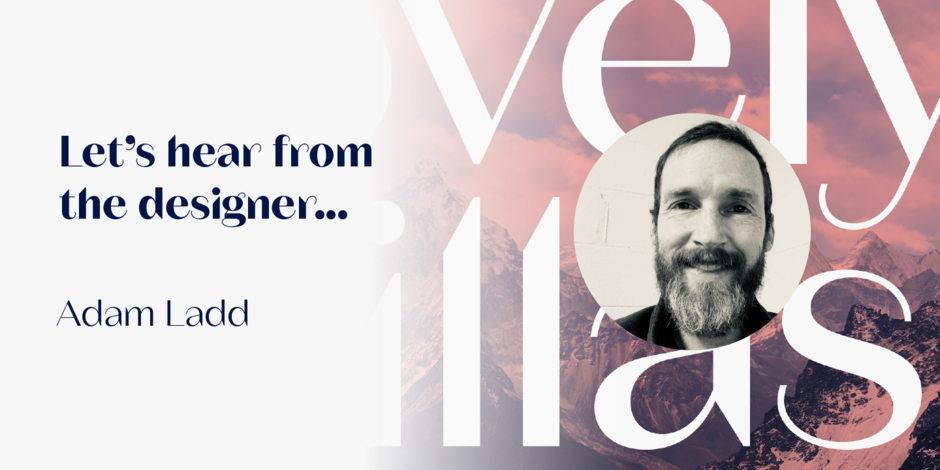
#19 Fromage by Adam Ladd
Q1: What should graphic communicators look for when choosing a typeface family for a specific project? What kind of typeface designs are best for pairing with your typeface?
Ans: I think a primary aim that needs to be addressed is the tone of voice for a project. Asking questions of the typeface design, like “what and how does this communicate to the intended viewer?”. Given that Fromage is mainly intended for display, most simple, unadorned sans serifs could support it well when paired.
Q2: What were your goals when designing the typeface? What is the one or two most important things graphic communicators should know about the typeface, or how will the family of fonts help them create better design?
Ans: I wanted Fromage to convey something modern and elegant, but not be busy or impractical. That’s also why there is an alternate family option with a little more traditional design. It pulls inspiration from classic high-contrast serif faces, so the family feels familiar but has some distinct details and monoline strokes that give it more expression.